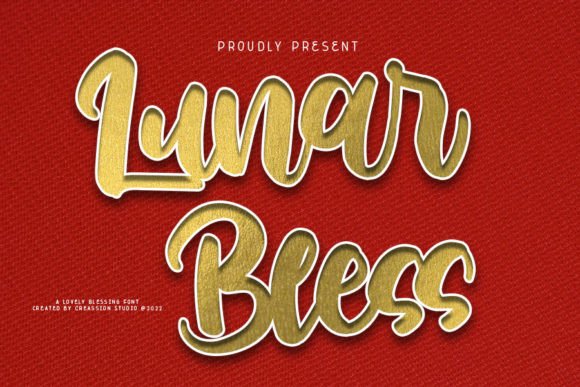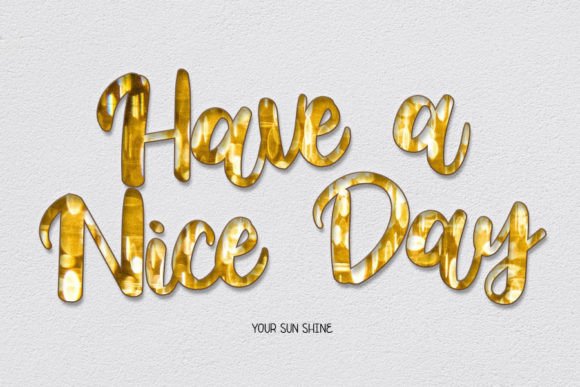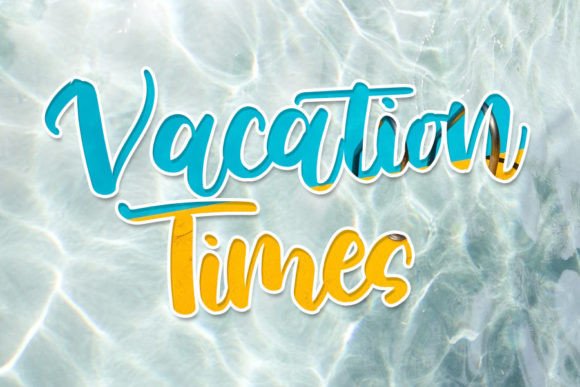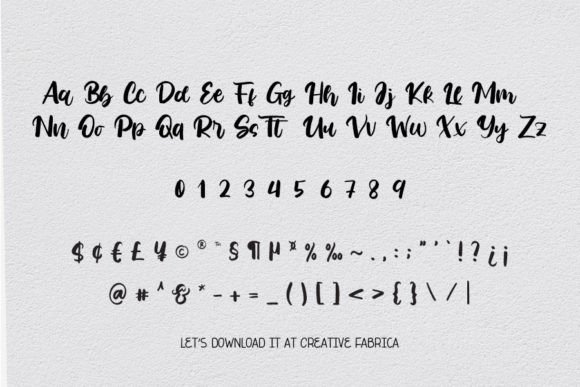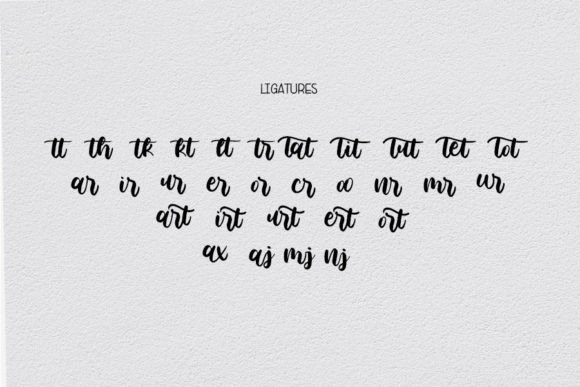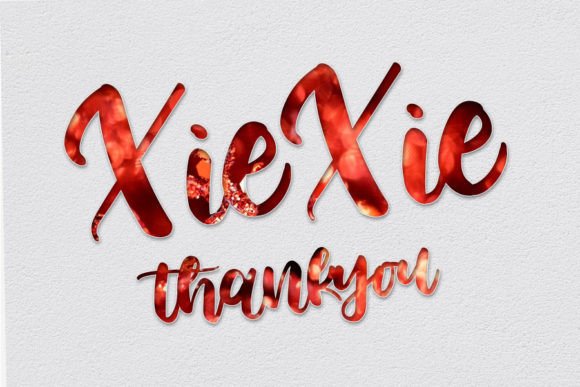
Lunarbless Font
About Lunarbless Font
LunarBless latest style letters are perfect for wall displays, wedding invitations, social media post logos, advertisements, product packaging, product designs, labels, photography, watermarks, invitations, stationery, and any project that requires handwritten taste.